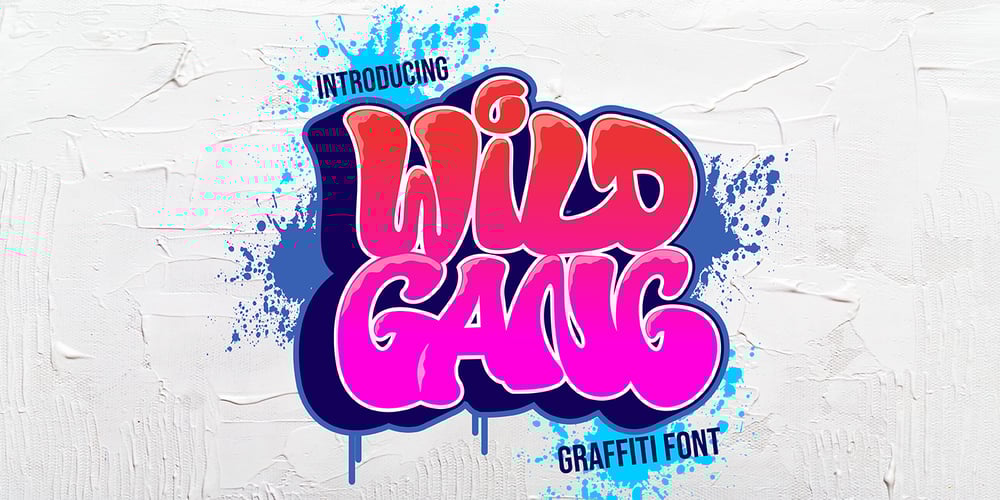
Wild Gang Graffiti
Wild Gang Graffiti Font Family was designed by Sipanji and published by Sipanji21. Wild Gang Graffiti contains 1 styles and family package options. WIld Gang Graffiti font is a unique display font with a graffiti-like appearance. Use this font for any crafting project, apparel design, logotype, advertising, wall decoration, and pretty much anything that requires a personalized look. Take your designs to the next level with this stunning font!thanks for order andhave a nice day